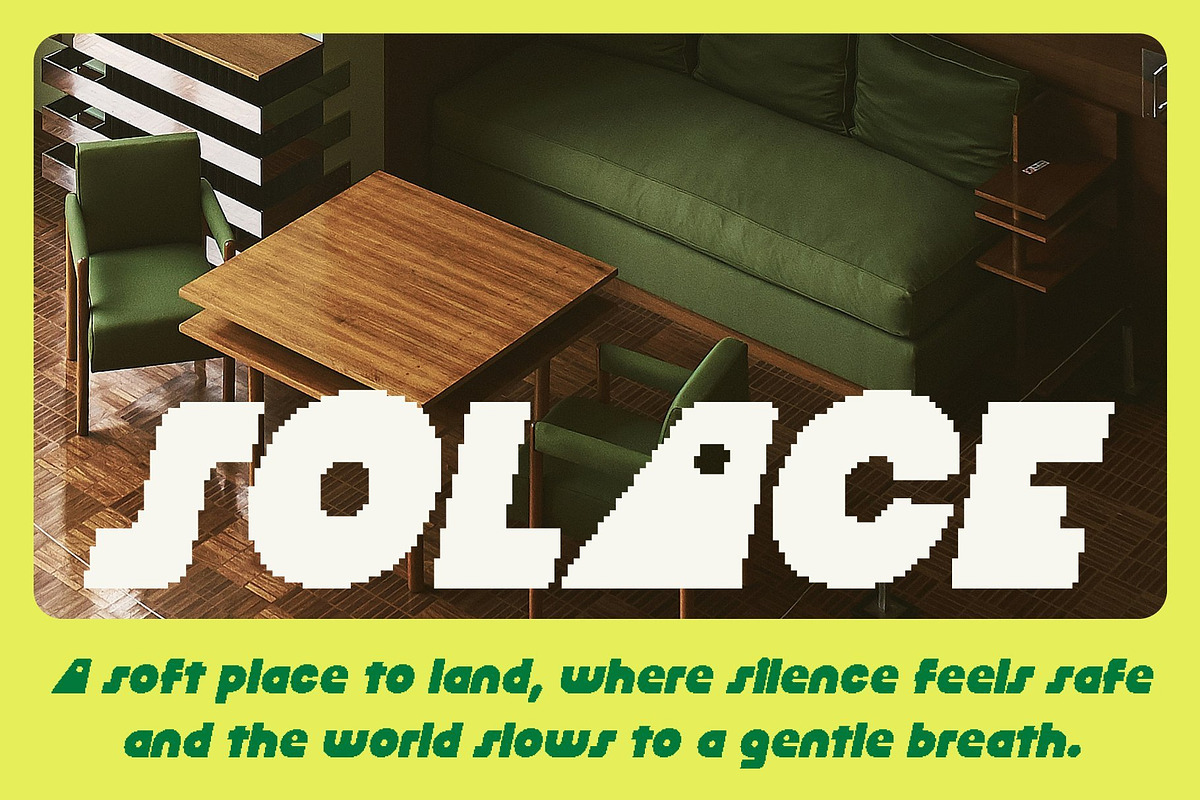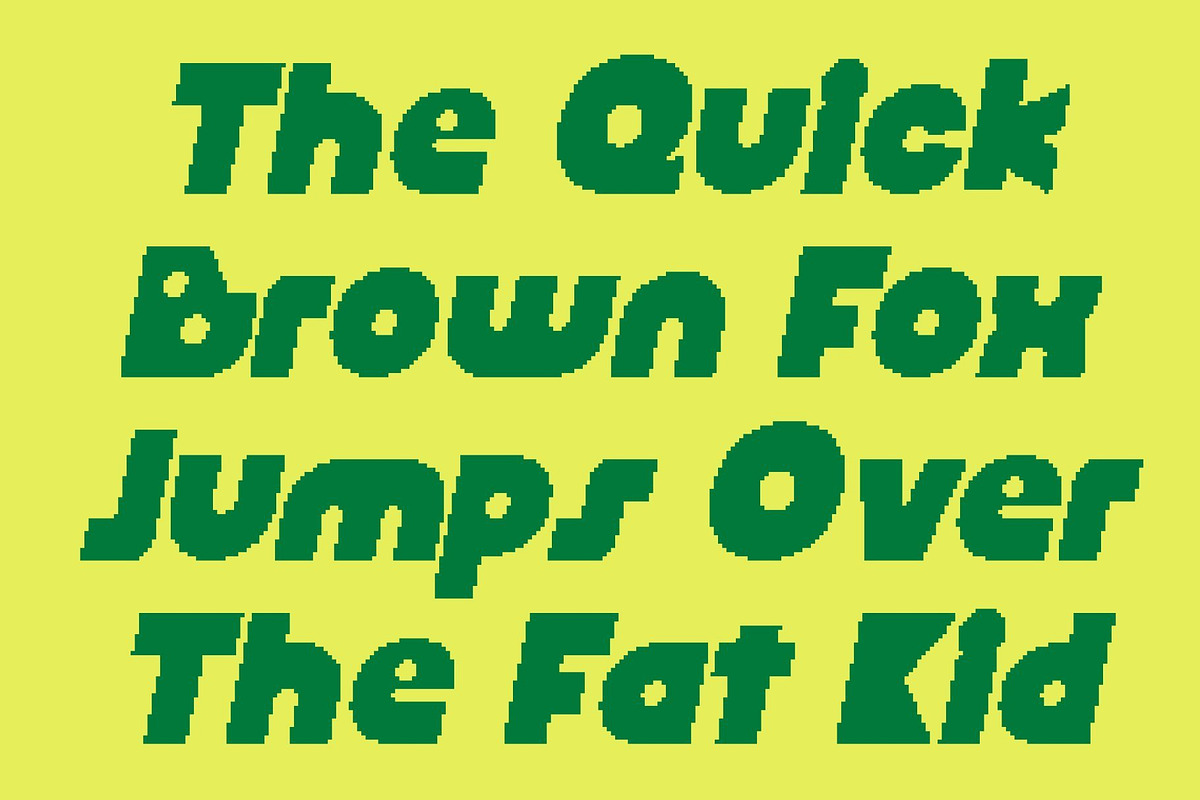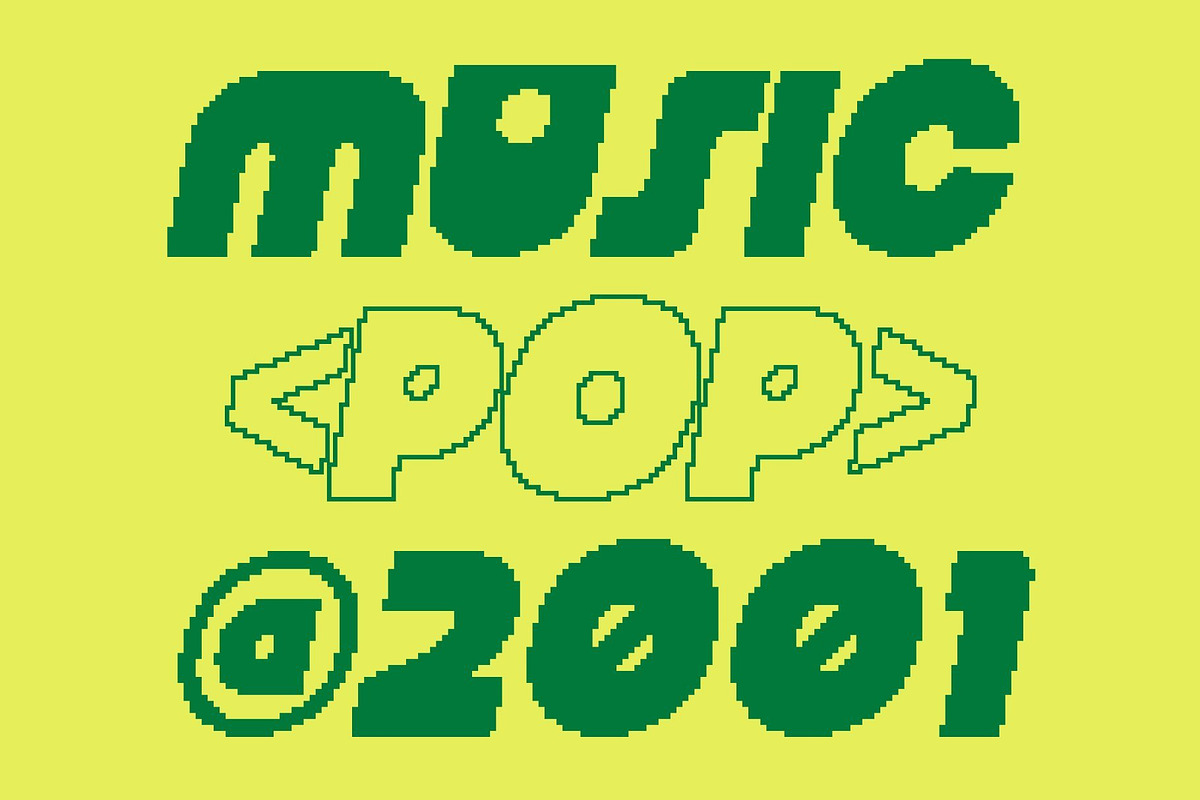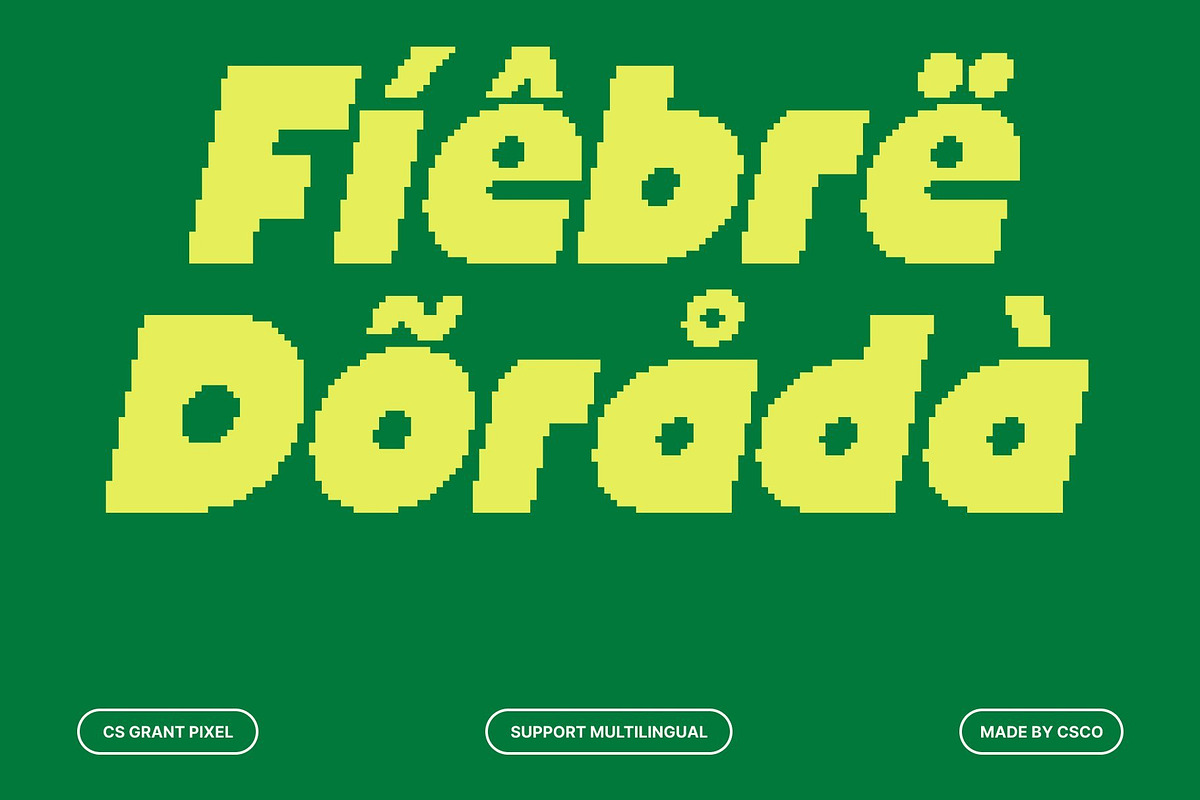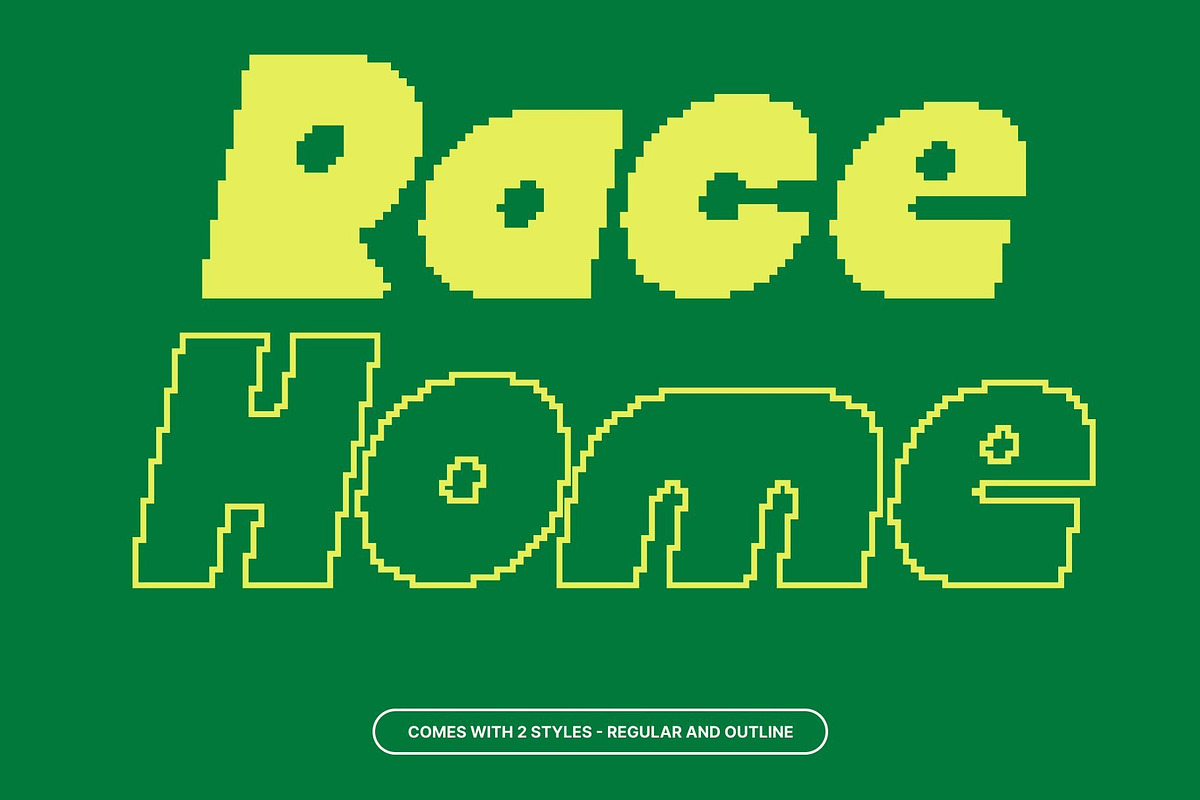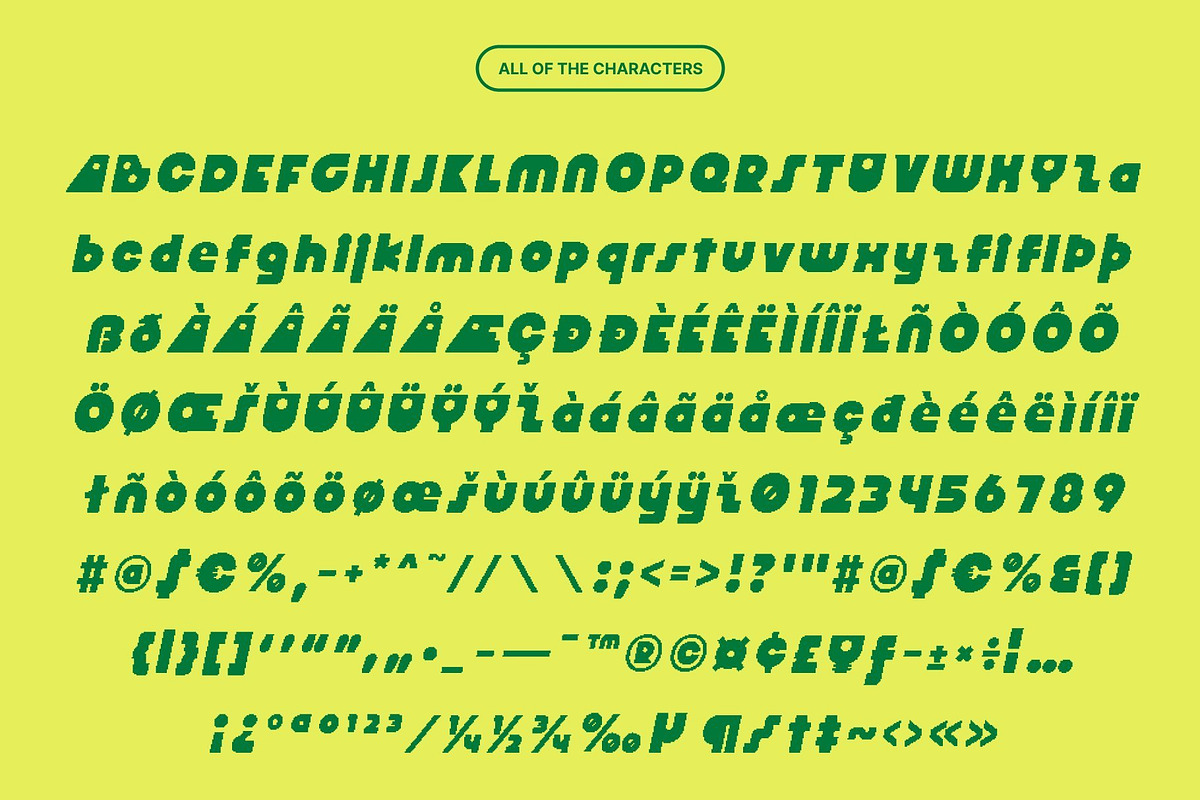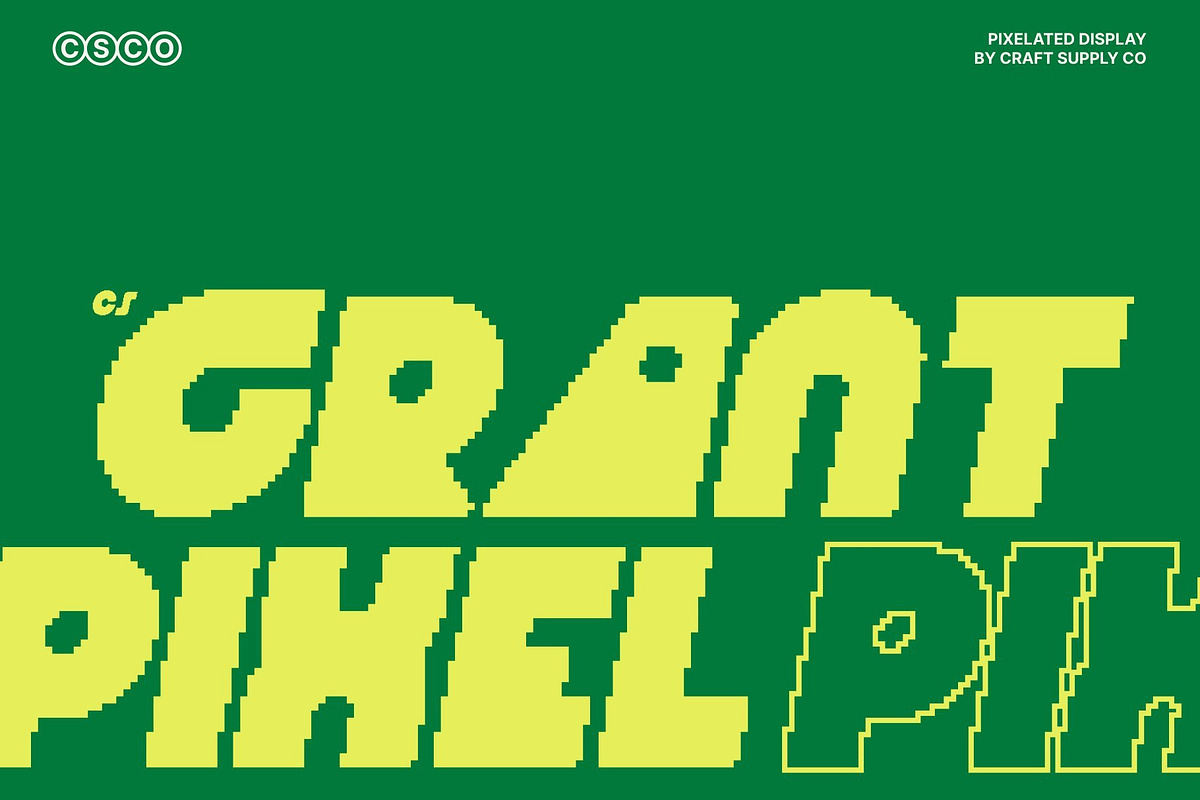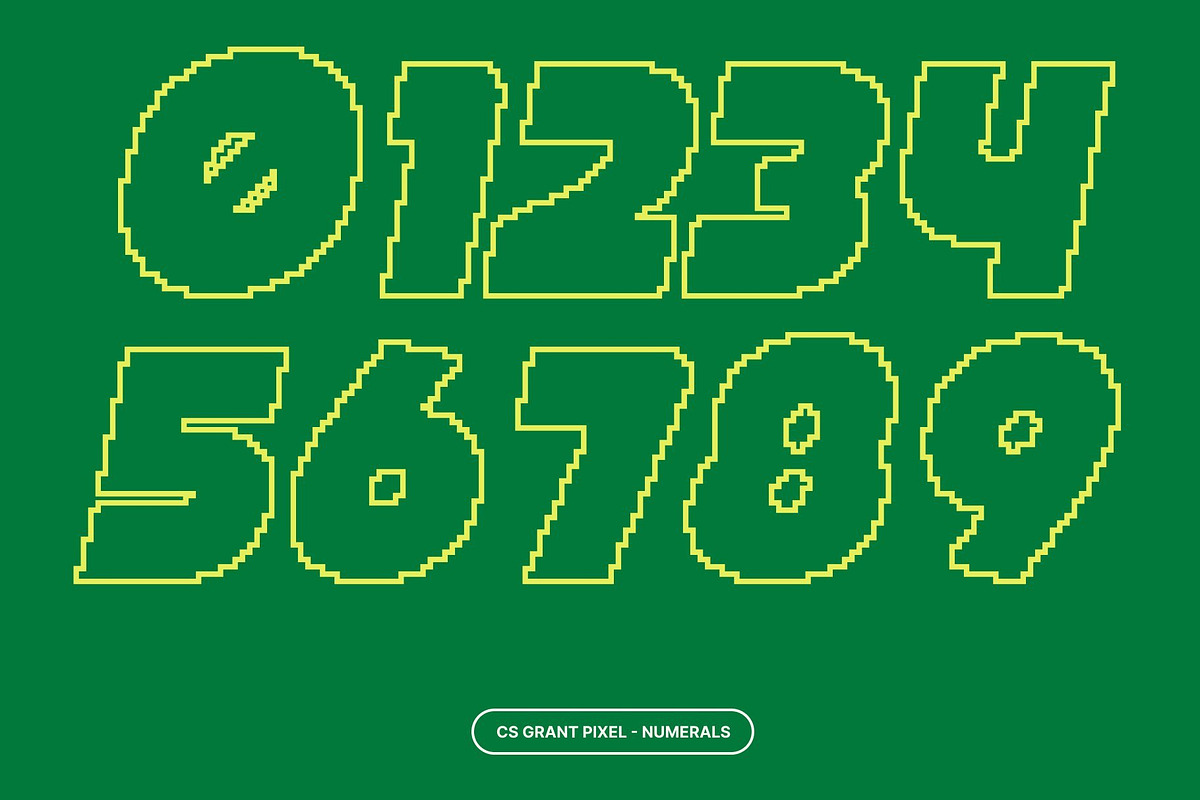
CS Grant Pixel
CS Grant Pixel – Modern Display Typeface with Experimental Digital Geometry
Modern Pixel Structure with Bold Expression This is a modern display typeface built from strong geometric shapes and pixel-refined construction. Its confident structure creates an immediate visual impact, while experimental letterforms give the font a distinctive, contemporary character. Ideal for designs that want to feel fresh, innovative, and visually striking, it blends boldness with digital sophistication.
Geometric Pixel Forms with Unique Personality This font stands out through its unconventional approach to geometry. Bold shapes, unexpected details, and subtle pixel alignment add creativity and originality while maintaining balance and readability. This font is expressive yet functional, combining experimental style with modern precision.
Fresh, Modern, and Eye-Catching With a forward-thinking, energetic aesthetic, this font delivers confidence and style to any composition. Its strong presence and inventive structure make it perfect for layouts that push visual boundaries while remaining clean, contemporary, and digitally polished.
Perfect for Magazines, Posters, and Design Titles This font excels in display use headlines, posters, branding, magazine layouts, and design titles. It adds originality, modern appeal, and bold digital character to creative projects that demand attention, freshness, and standout typographic impact.